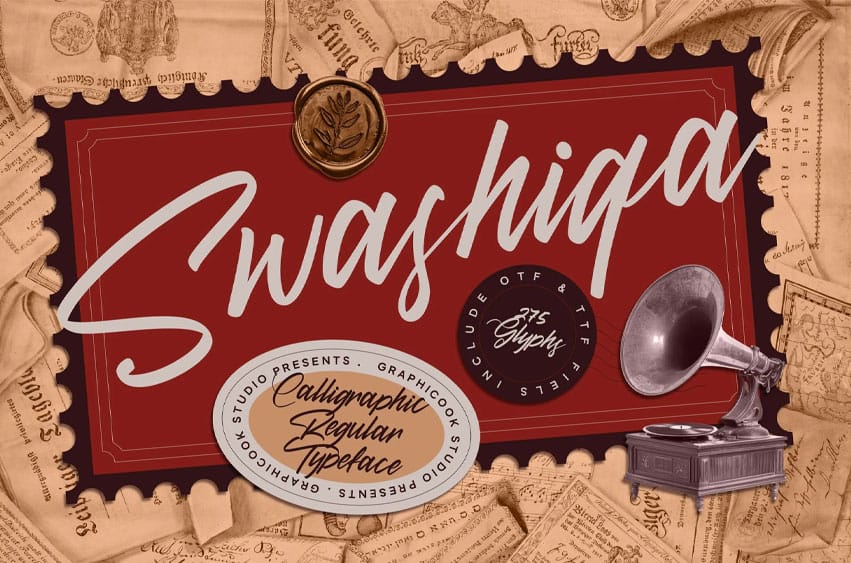
Swashiqa Font is a script font with a vintage style, offering an elegant, artistic, and classic touch. Ideal for wedding stationery, luxury branding, certificates, and vintage-themed designs.
It is perfect for headlines, logotypes, magazines, packaging, quotes, movies, games, cover albums, book covers, and flyers. It’s a perfect solution for creating eye-catching designs that stand out in any context.